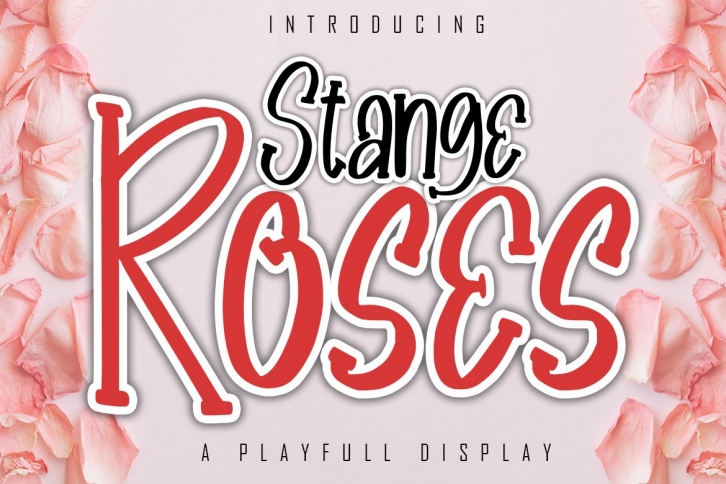
Stange Roses A Playfull Display Font Download
Stange Roses A Playfull Display is a beautiful font that was designed by SkiillerStudio. It's a great choice for designers and creatives who need such a font. It was released on February 2, 2021 and the file size is 13.36 MB. Stange Roses A Playfull Display may give a more youthful, expressive and casual look to your project. It is a very beautiful, refined, elegant, and high-quality font.